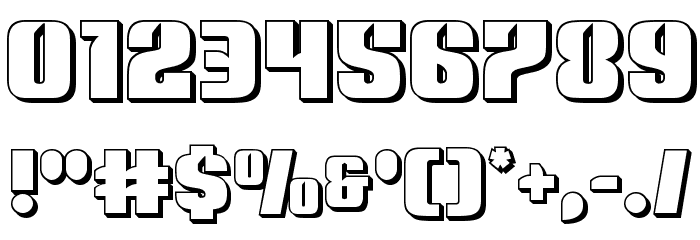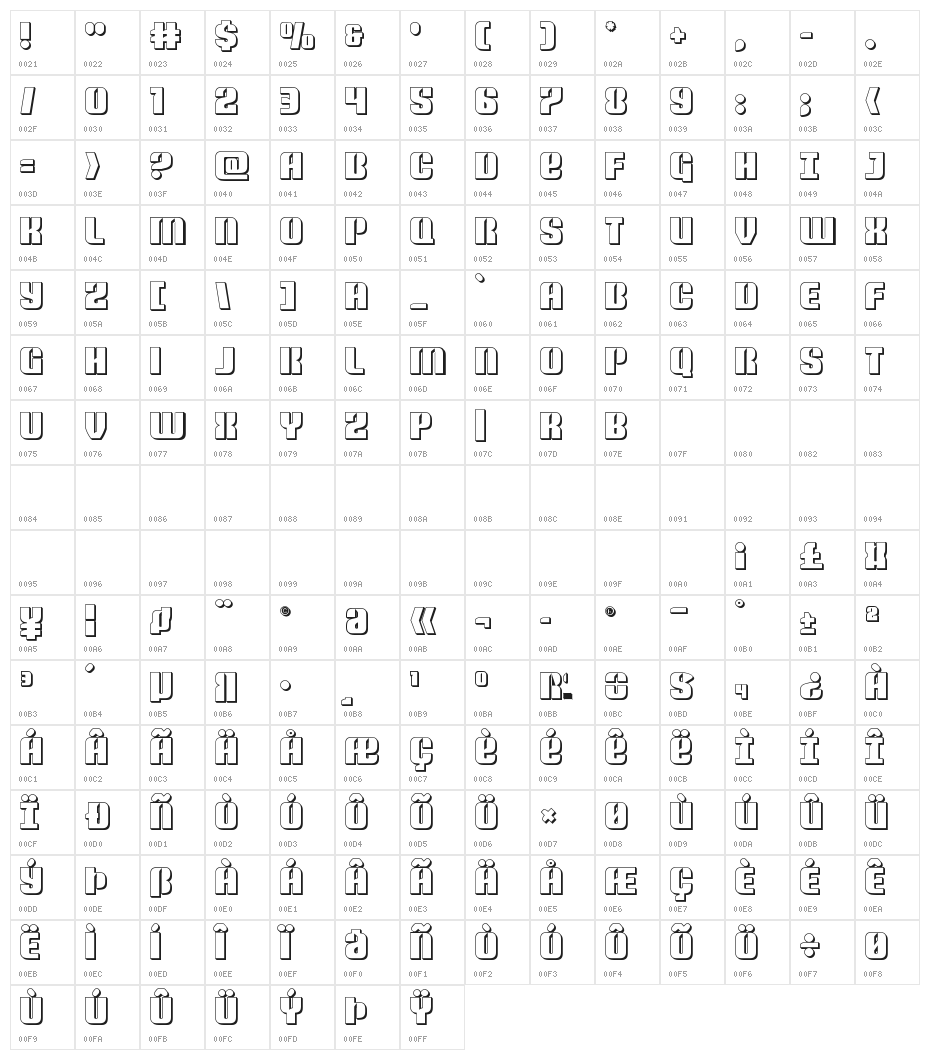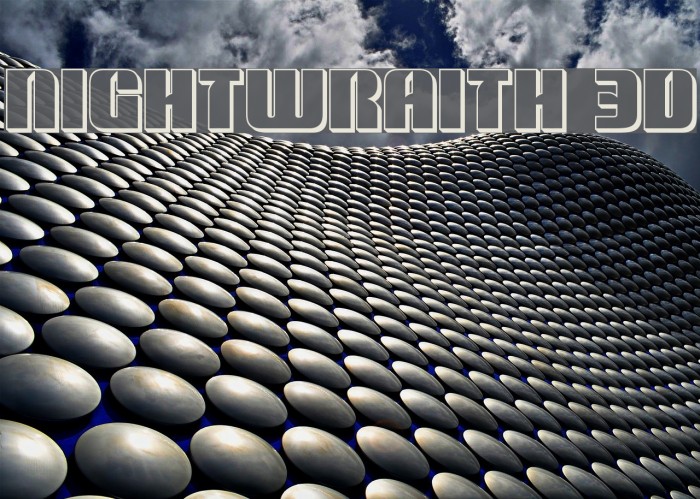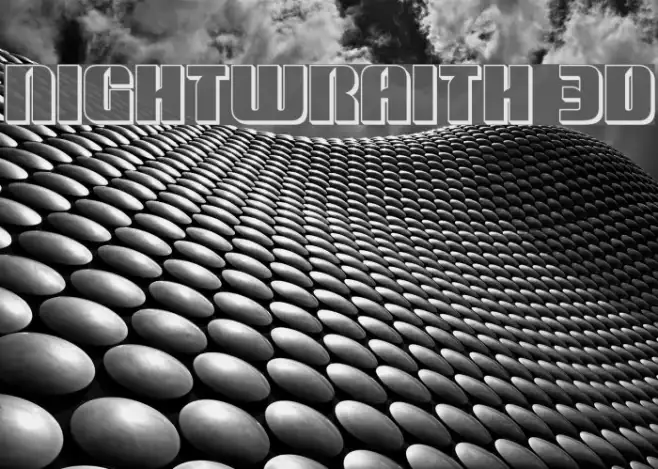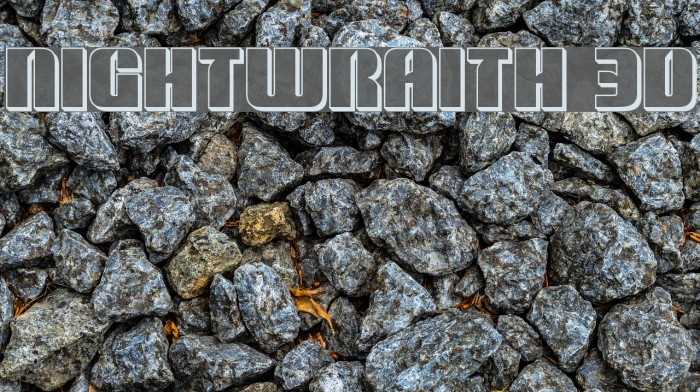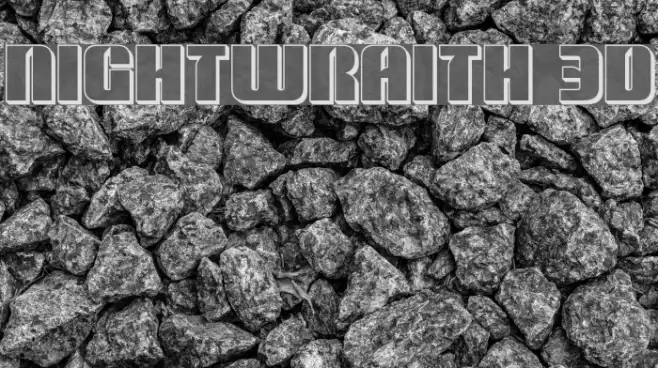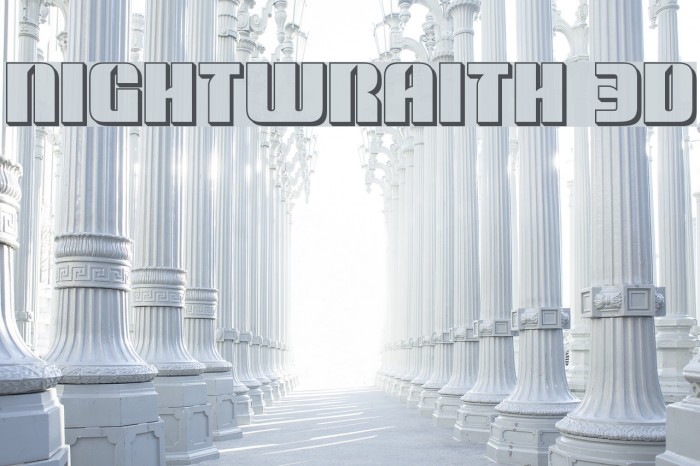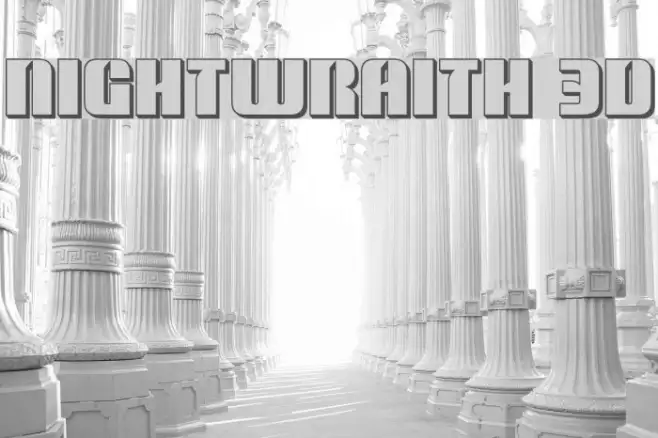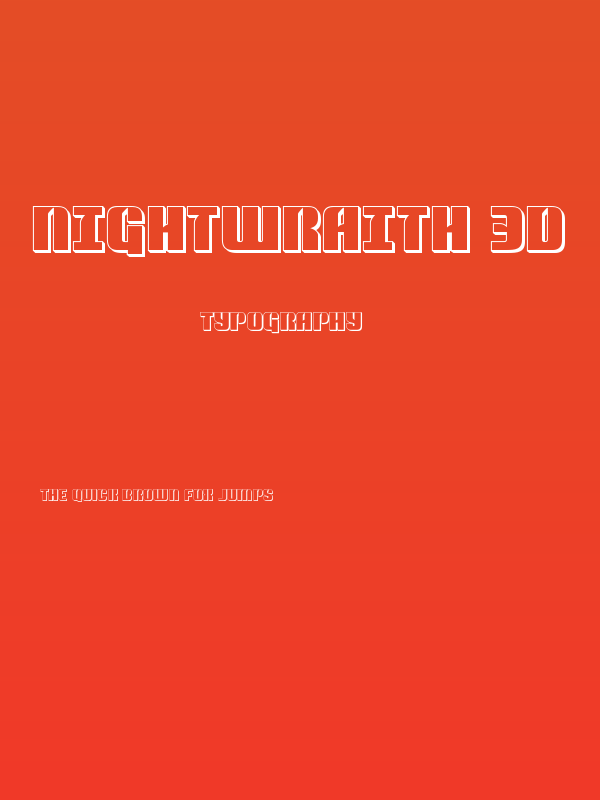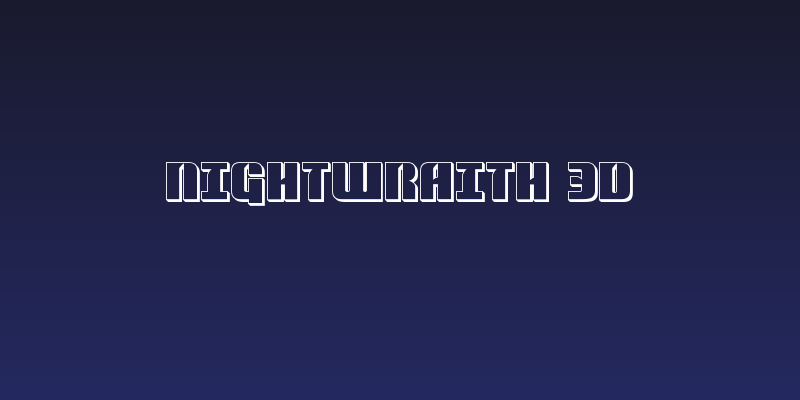
Nightwraith 3D Font
Nightwraith 3D Description
This font features a bold, three-dimensional design with a strong outline that gives each character a striking appearance. The letters are blocky and geometric, with a consistent thickness throughout, creating a uniform and cohesive look. The 3D effect is achieved through a shadow-like extension that adds depth and a sense of movement. This style is reminiscent of retro or vintage arcade games, making it ideal for projects that require a bold and eye-catching display. The characters are evenly spaced, ensuring readability while maintaining the distinct style. The font includes a full set of uppercase and lowercase letters, numbers, and a variety of special characters, making it versatile for various design needs.
| Overall Style | Retro, Vintage |
| Proposed Projects | Ideal for video game titles, posters, logos, and any design needing a bold, retro aesthetic. |